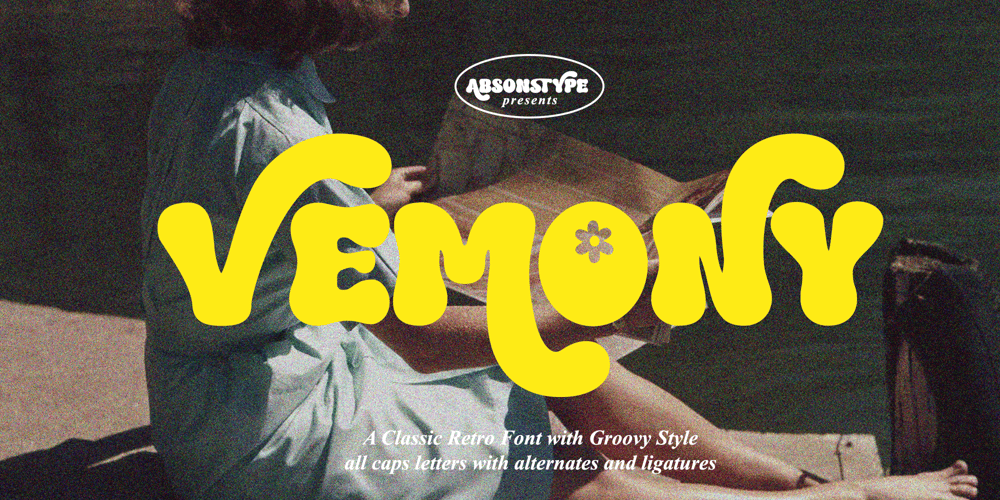
Vemony Font Family was designed by Edhi Prayitno and published by Absonstype. Vemony contains 1 styles and family package options. Vemony is the Groovy Retro display typeface with All Caps style looks and feel nice balanced. Provide with alternates and ligatures font in variant style make the design letter looks nice. Honestly it works perfectly for headlines, logos, posters, packaging, T-shirts and much more.If you have questions, just send me a message and I’m glad to help.Have a great day,Absonstype